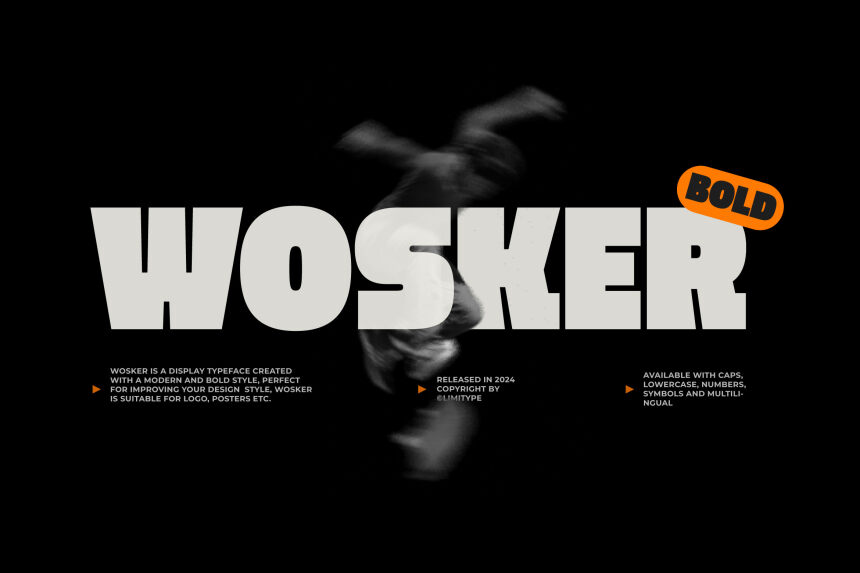
Wosker, a creation of Muhammad Muammar from Limitype, stands out with its bold and modern sans serif style that commands attention. The font's robust stature and clean lines exude confidence, making it a standout choice for messaging that means to leave a lasting impact. This font's aesthetic appeal lies in its harmonious balance between contemporary flair and functional clarity.
Ideal for headlines, branding, and advertising campaigns where strength and readability are paramount, Wosker ensures that your message is not only seen but felt. Its commanding presence makes it perfect for industries ranging from technology to fashion, where cutting-edge design is appreciated. Wosker is the typographic embodiment of bold sophistication-equally at home in print or on screen, ready to elevate any project with its distinctive character.